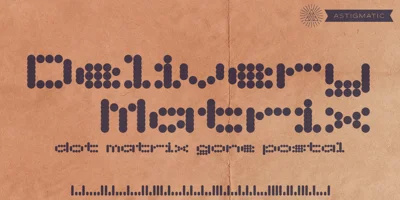
Delivery Matrix AOE Font
Delivery Matrix AOE Font is perfect for sci-fi movie titles, cyberpunk branding, futuristic gaming interfaces, tech company logos, digital art projects, virtual reality experiences, dystopian designs, electronic music covers, and cutting-edge technology advertising. This striking typeface brings digital matrix aesthetics and futuristic energy to projects requiring high-tech visual impact and cybernetic appeal.
What makes Delivery Matrix AOE Font exciting is its cybernetic precision that embodies the digital revolution and matrix-inspired design philosophy with uncompromising futuristic vision and technological sophistication. The font features angular letterforms with digital styling and geometric precision that creates visual tension between human expression and machine efficiency. Its cyberpunk character and revolutionary personality make it irresistible for tech innovators seeking typography that communicates digital transformation while resonating with audiences fascinated by technological evolution and futuristic possibilities.
The Delivery Matrix AOE Font family includes digital weights and cybernetic styles: Light, Regular, Medium, Bold, Black, and glitch variations with pixelated effects and matrix alternates. Each weight maintains the font's digital character while offering designers unlimited flexibility for tech branding and futuristic design applications requiring cutting-edge visual impact and cyberpunk authenticity.
Whether you're designing for technology companies or digital entertainment, Delivery Matrix AOE Font provides designers with a revolutionary, digitally-focused typeface solution. The font's cybernetic aesthetics and futuristic styling make it ideal for software companies, gaming studios, VR developers, and tech startups. Its commanding presence ensures your message communicates innovation and digital mastery while maintaining strong technological readability. The comprehensive character set includes digital symbols and matrix effects, making it perfect for creating powerful headlines and brand identities that celebrate technological advancement and establish memorable connections with audiences seeking cutting-edge digital experiences and cybernetic innovation.